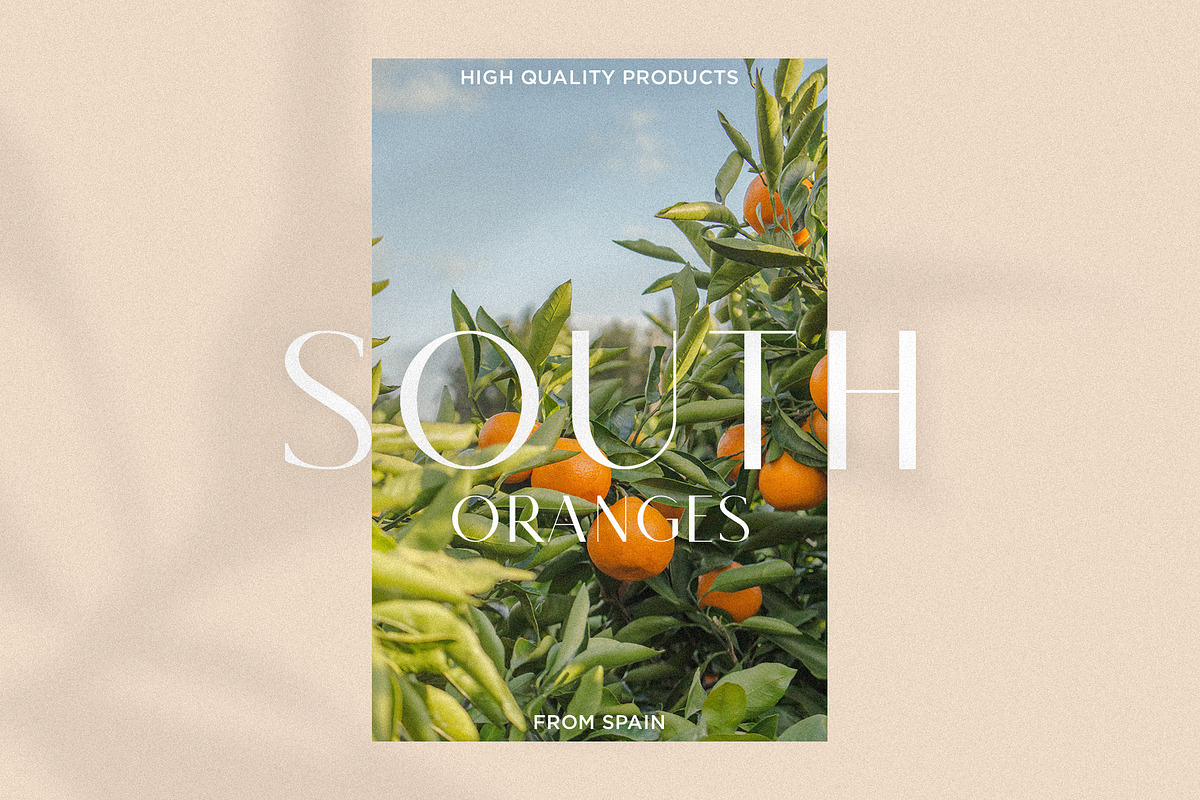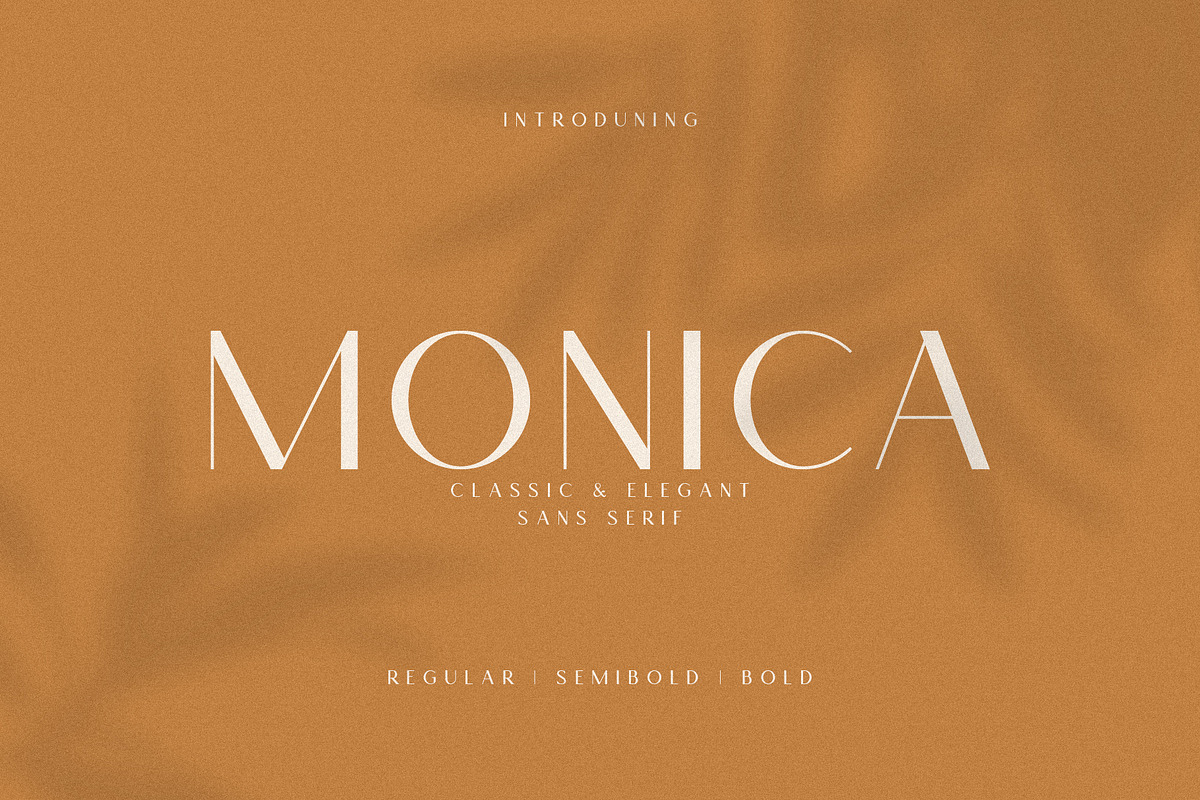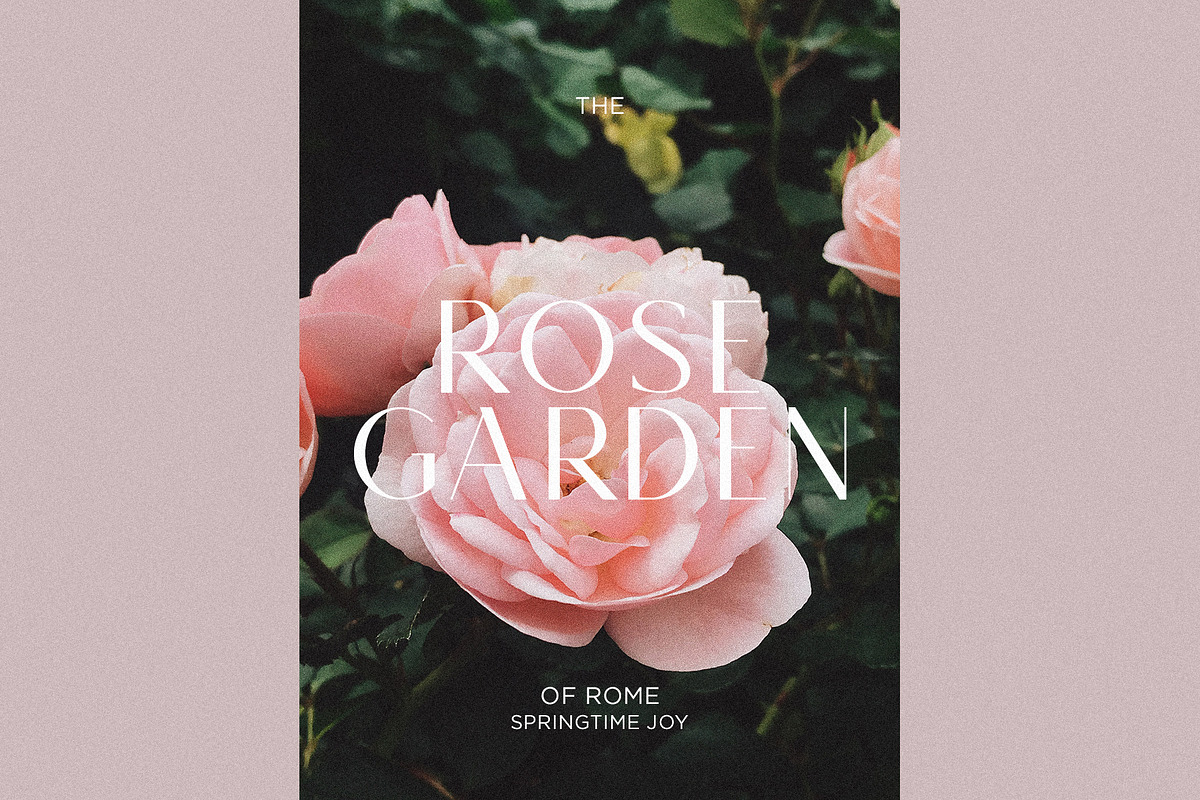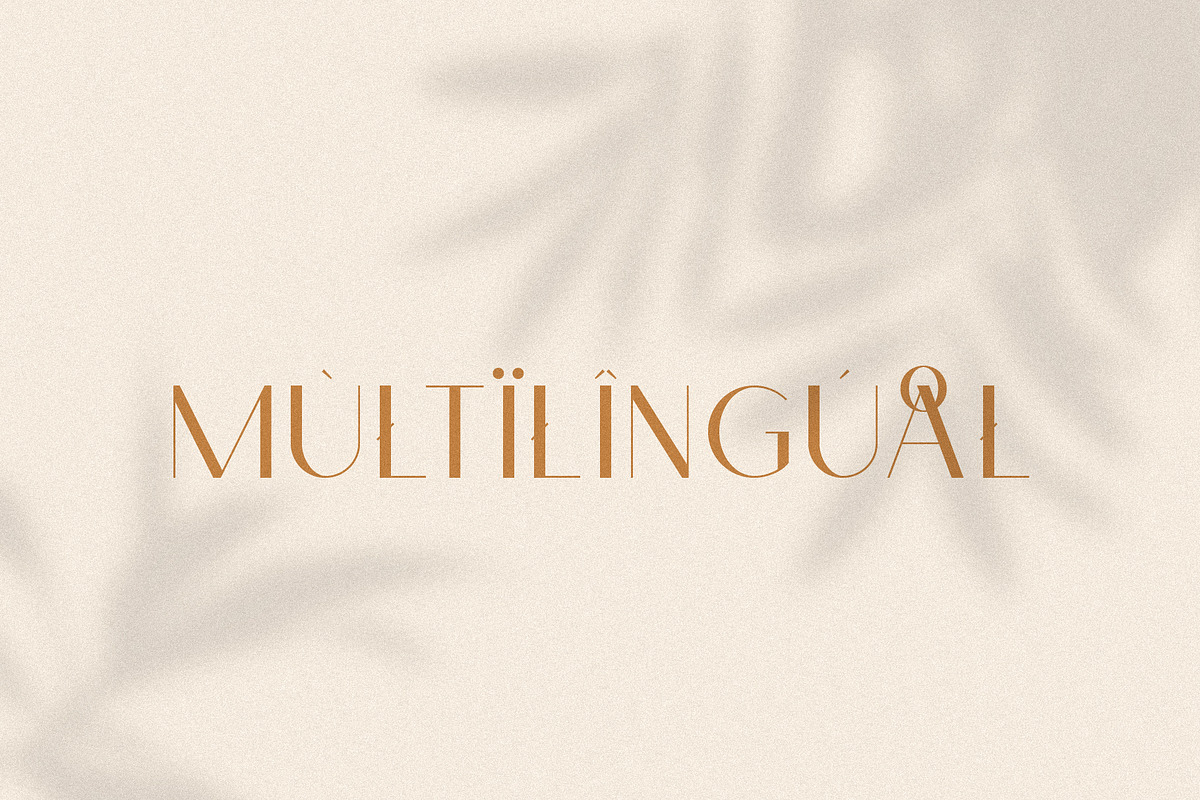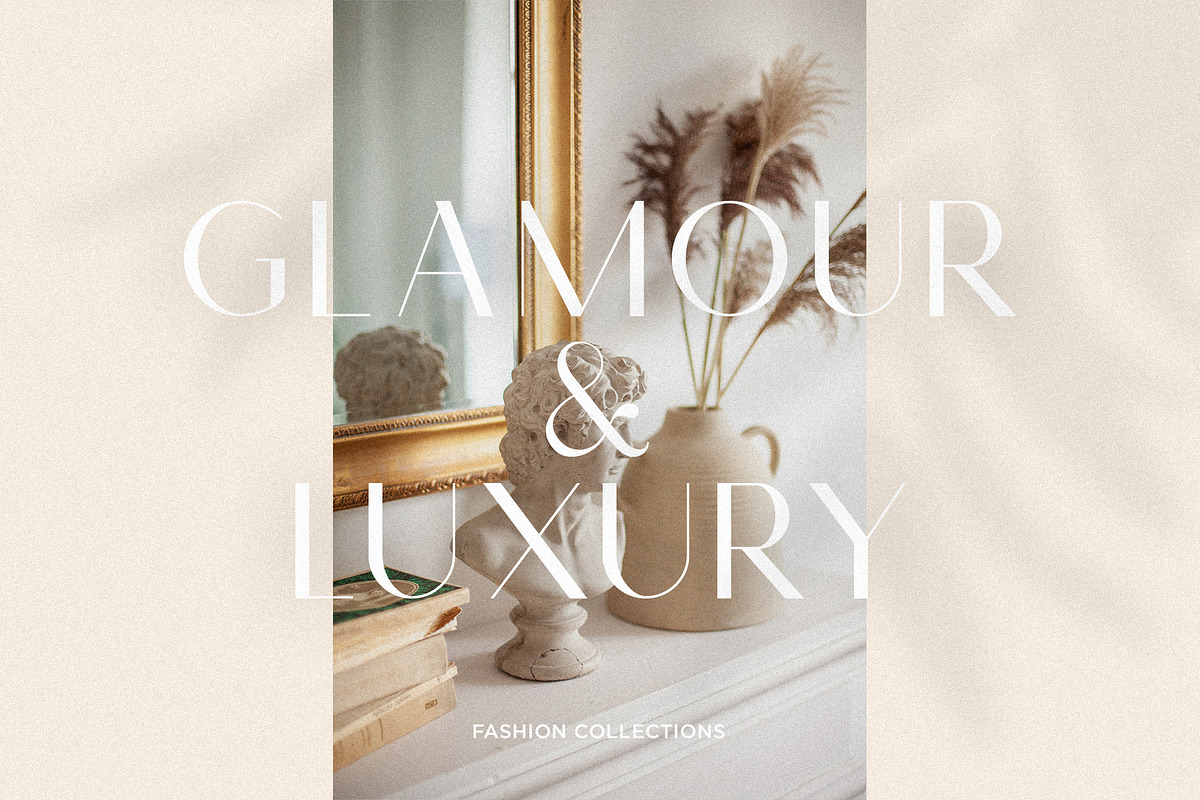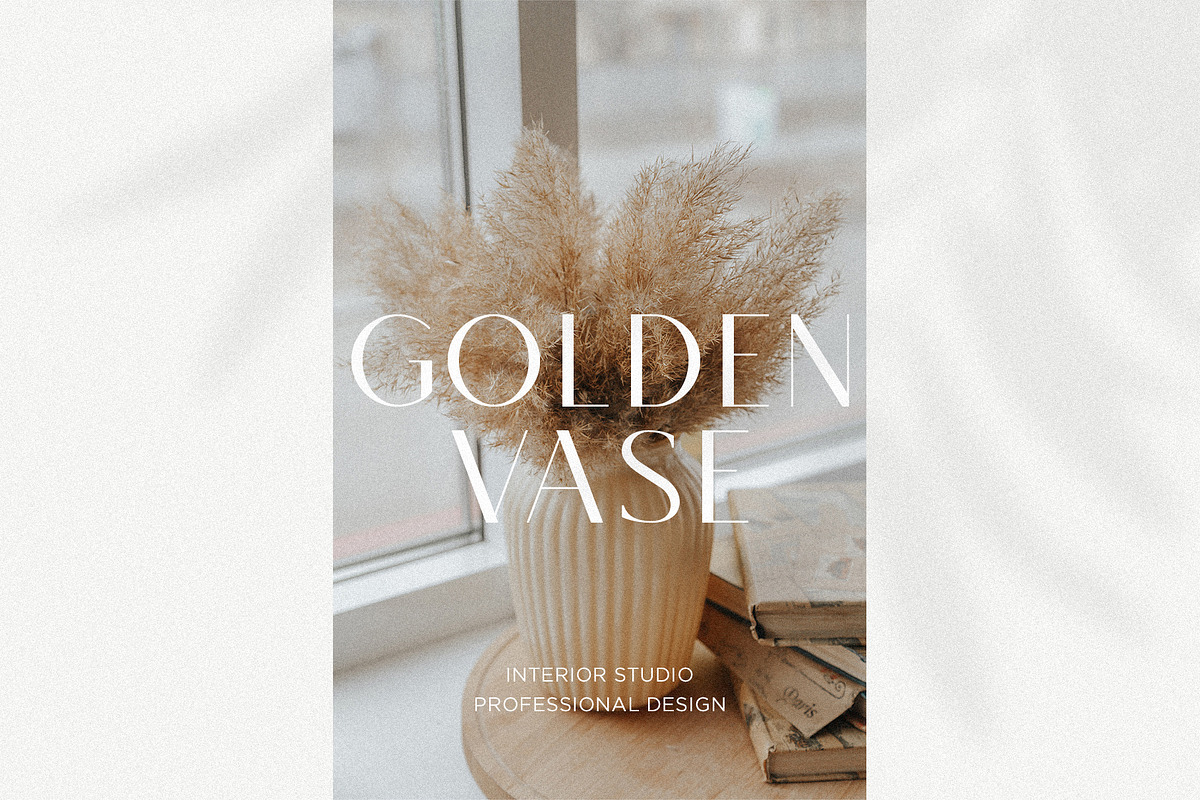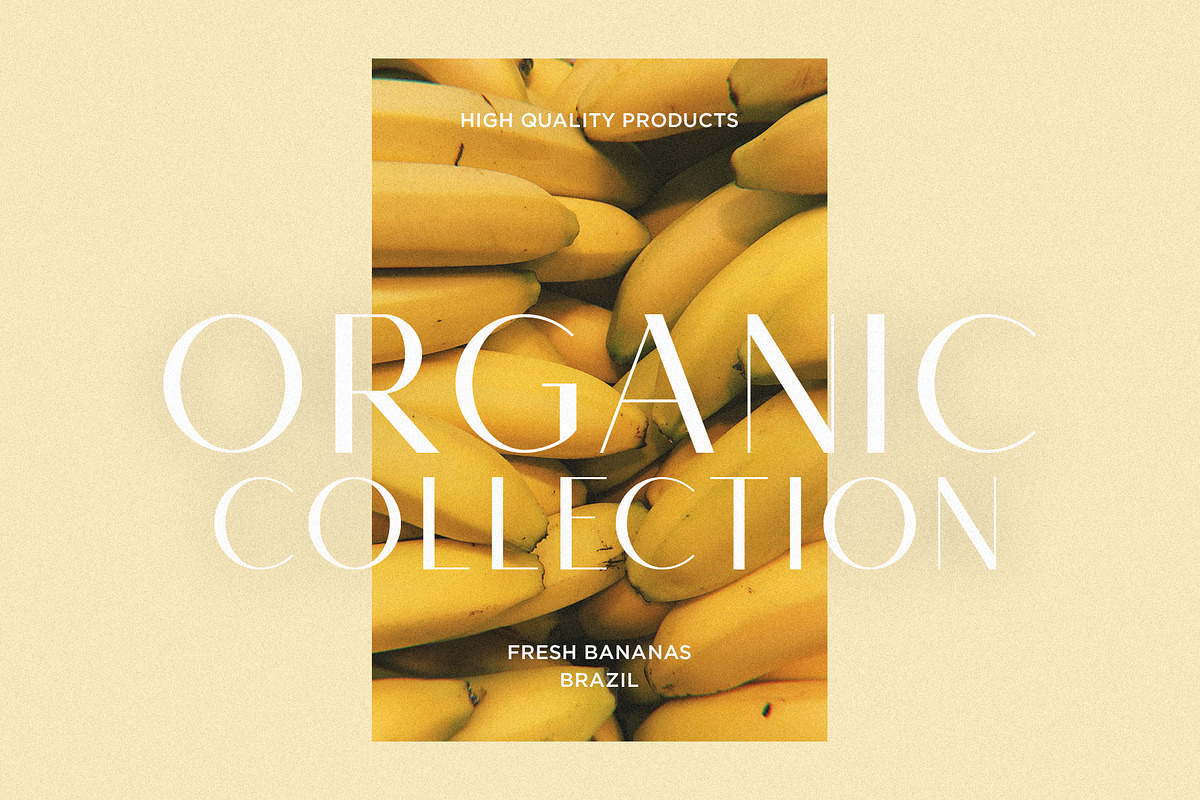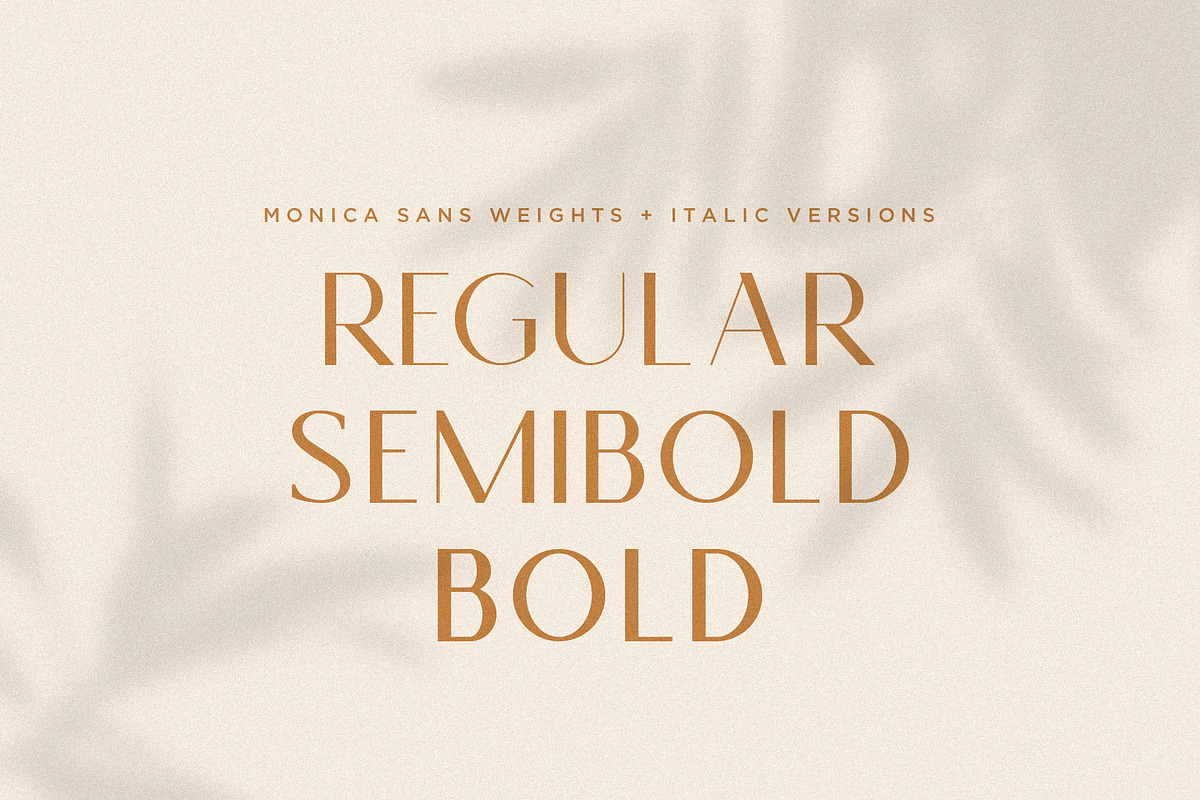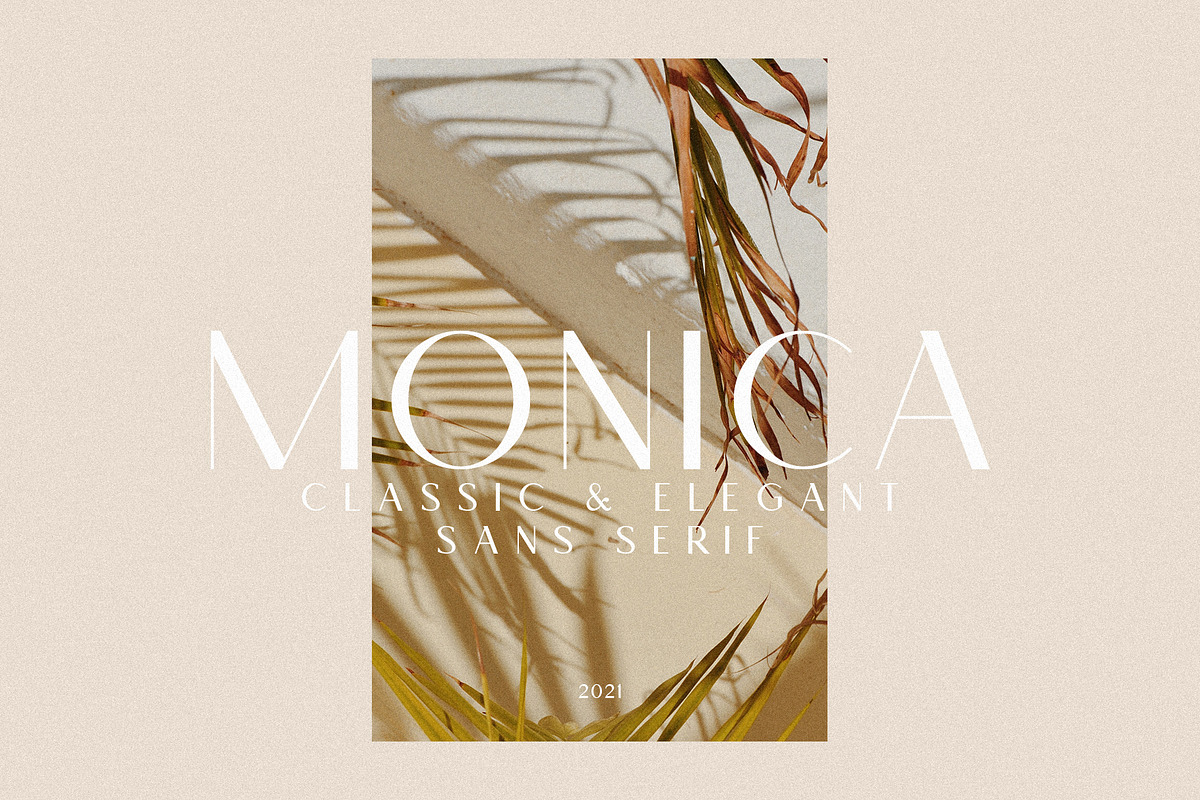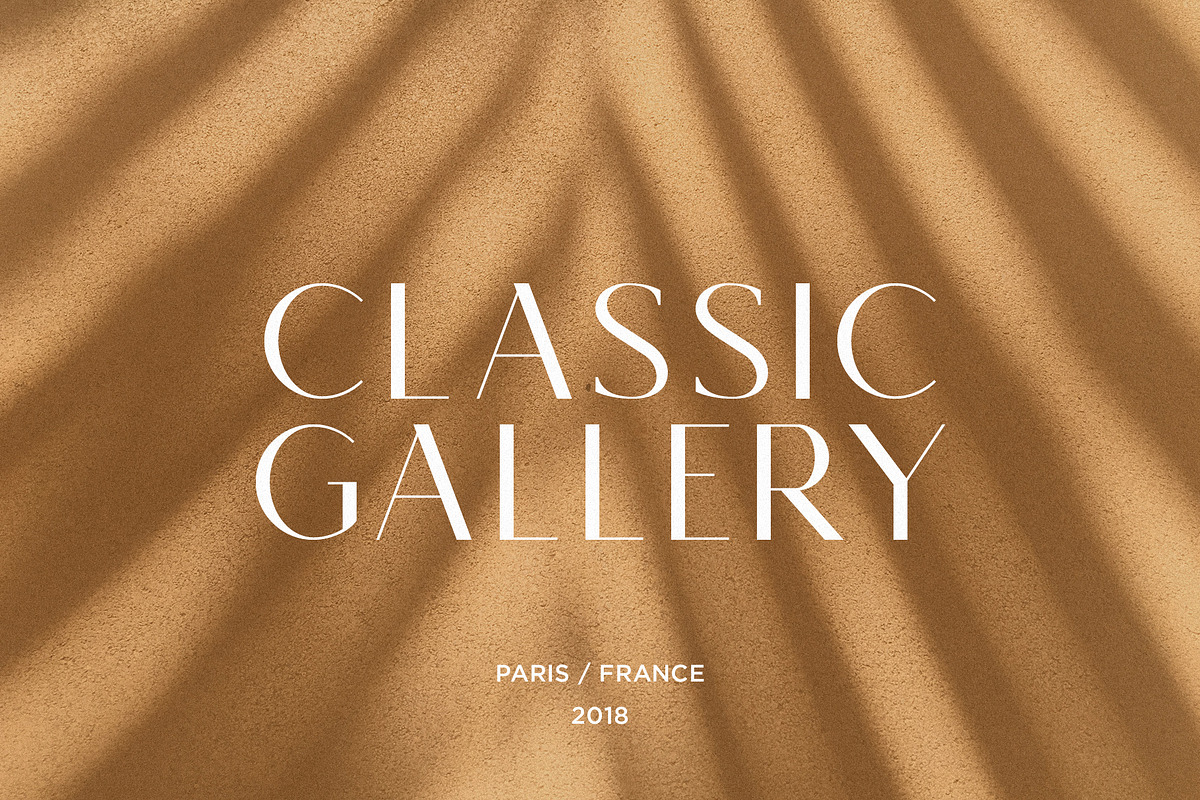
Monica - Classic & Elegant Sans
Monica is a classic & elegant font with 3 weights: Regular, Semibold, Bold. Monica is perfect for branding, logos, invitation, masterheads and more.
- 6 versions: Regular, Regular Italic, Semibold, Semibold Italic, Bold, Bold Italic